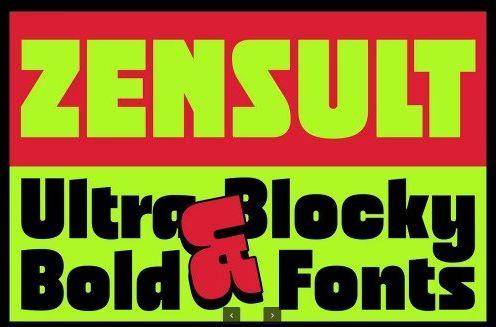
Konstantine Studio – Zensult – Ultra Bold Blocky Fonts
Konstantine Studio Zensult Ultra Bold Blocky Fonts
Step into a time machine and unleash the vibrant, unapologetic energy of the past with Zensult. This isn’t just a font; it’s a bold statement, a design revolution inspired by the iconic, eye-popping aesthetics of retro pop culture. Remember the days of Saturday morning cartoons, the dynamic layouts of comic book panels, and the bold headlines of vintage movie posters? Zensult captures that very spirit. With its ultra-blocky, irresistibly bold letterforms and a playful, colorful vibe, this typeface is a nostalgic nod to the golden age of visual communication.